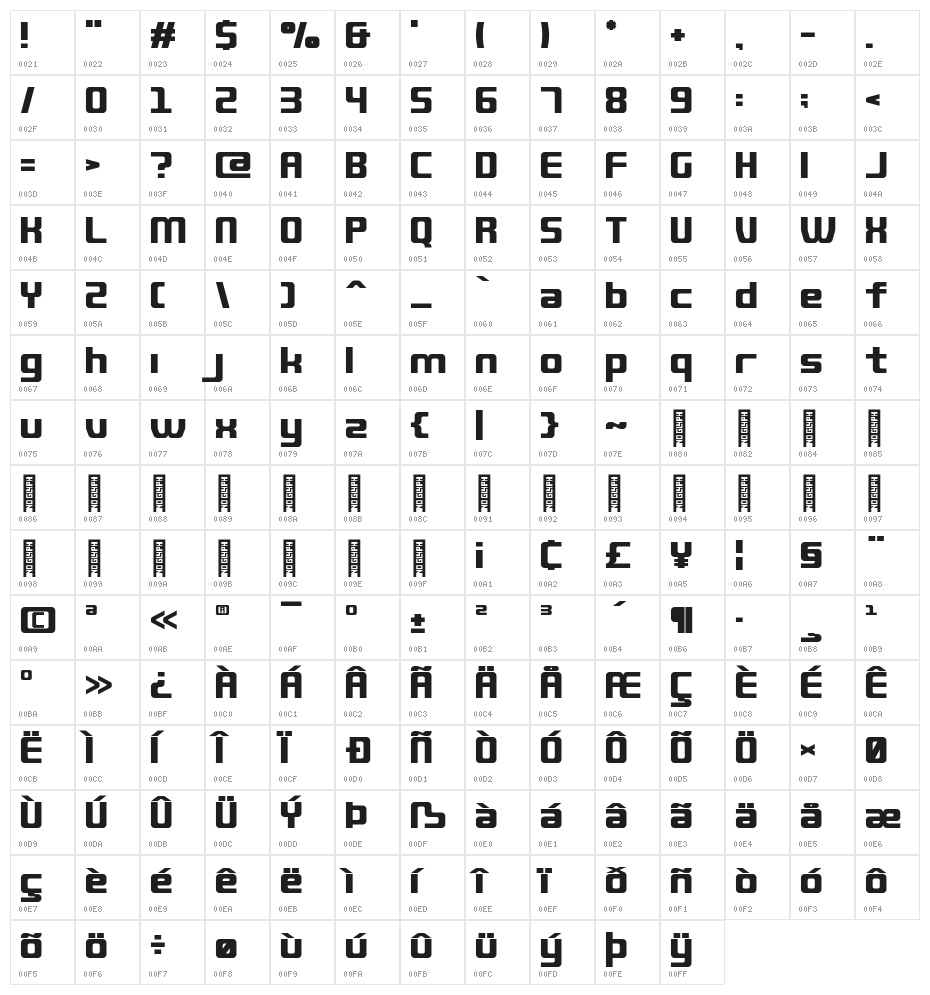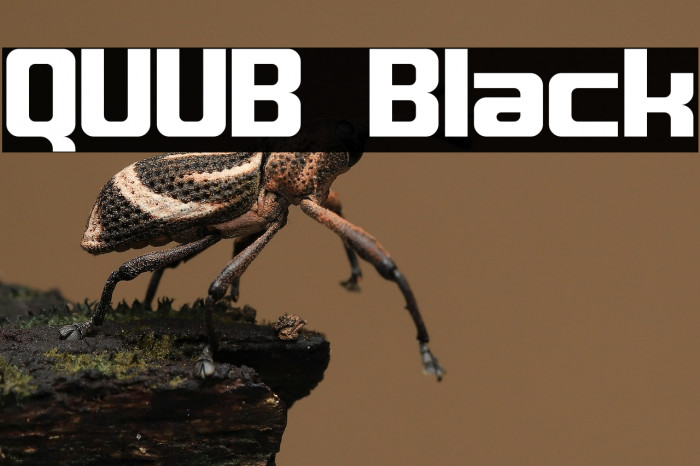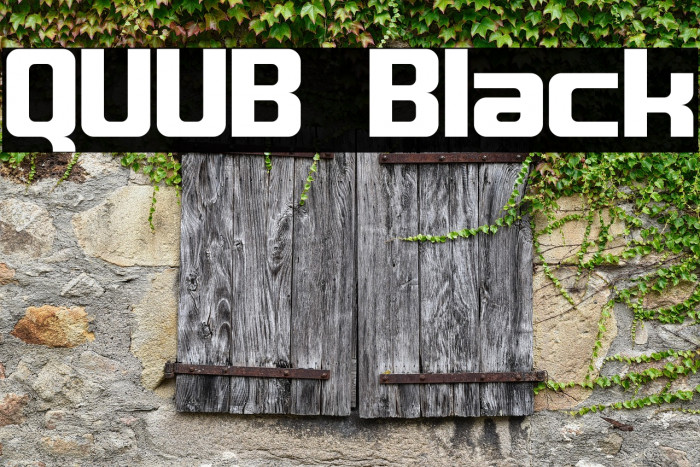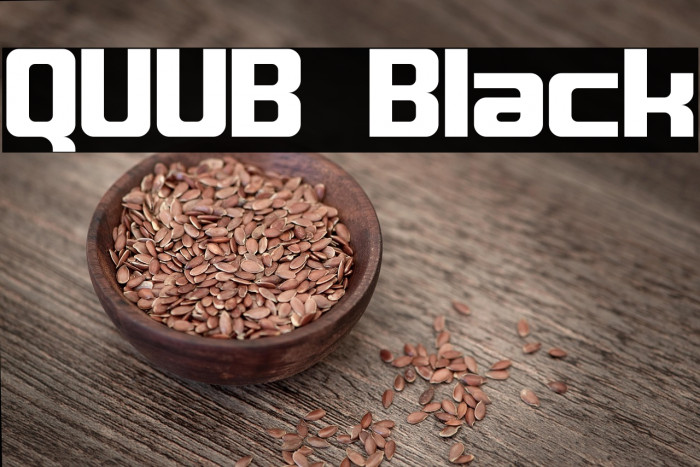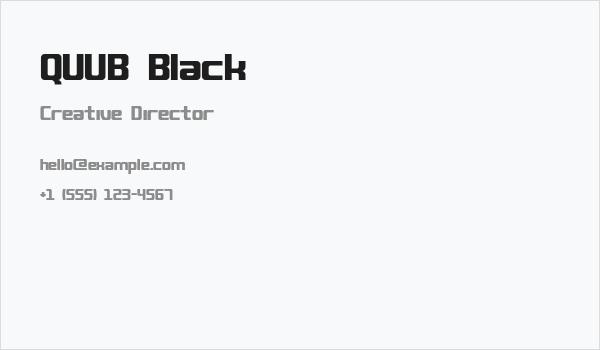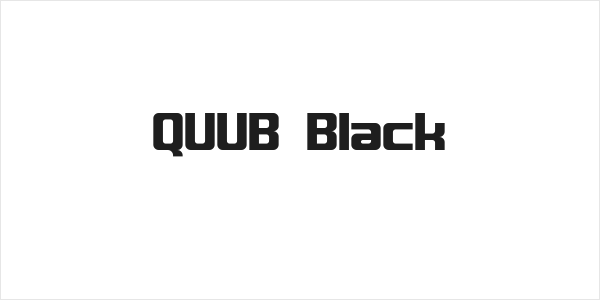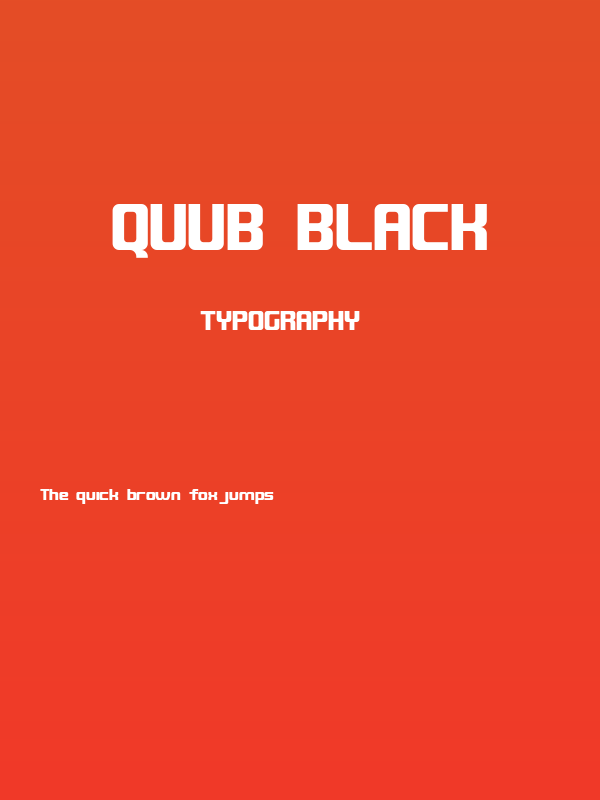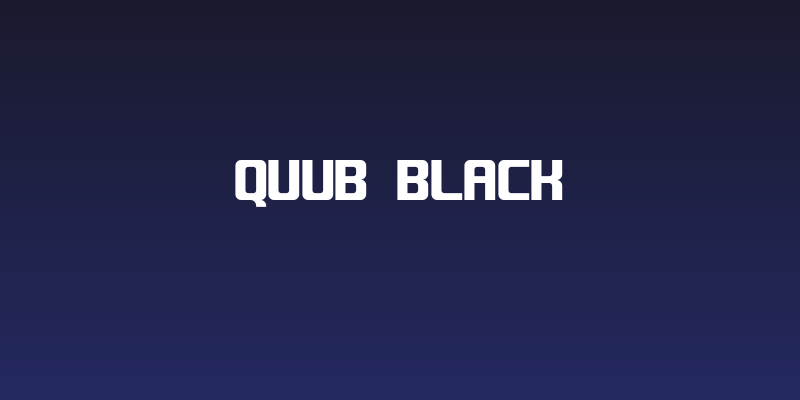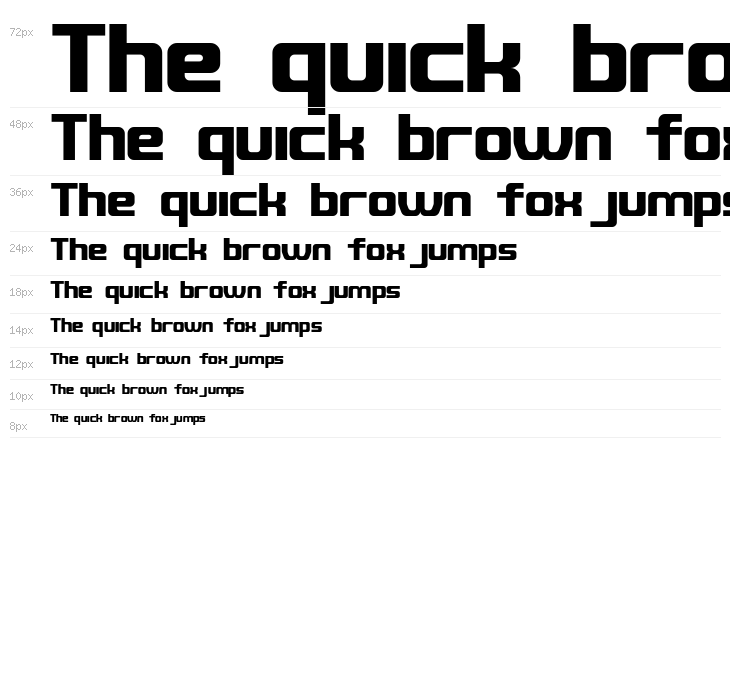
QUUB Black Font
QUUB Black Description
This font features a bold and geometric design with a strong presence. The characters are constructed with thick, uniform strokes, giving it a robust and modern appearance. The edges are slightly rounded, adding a touch of softness to the otherwise solid structure. The uppercase and lowercase letters maintain a consistent style, with a focus on clarity and readability. Numbers and special characters are designed to match the boldness of the alphabet, ensuring a cohesive look across all text. The overall style is contemporary, making it suitable for a variety of design applications.